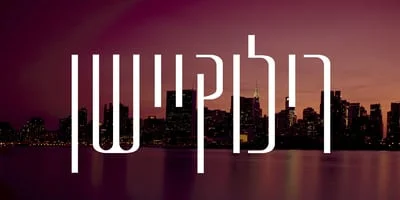
Glass MF Font
Glass MF Font is crystallinely designed for high-tech company branding, modern architectural presentations, luxury crystal product packaging, contemporary art gallery materials, premium glassware advertising, sleek technology interfaces, transparent design projects, and sophisticated optical communications. This luminous typeface excels in environments requiring clarity and modern transparency, making it perfect for tech startups, architectural firms, luxury brands, and any organization needing to communicate precision and crystalline elegance through distinctive typography.
What makes Glass MF Font so exciting is its exceptional ability to capture the essence of transparency and optical clarity through letterforms that appear to shimmer with crystalline precision and modern sophistication. The font features meticulously crafted characters with clean geometric lines and subtle refractive qualities that evoke the pristine clarity of fine crystal and the precision of optical instruments. Its transparent construction and modern character make it incredibly effective for brands wanting to communicate innovation, clarity, and technological advancement while appealing to audiences who appreciate cutting-edge design and premium quality.
Glass MF Font typically includes multiple weights and styles such as Thin, Light, Regular, Medium, and Bold, often accompanied by crystalline variants with enhanced transparency effects. The font family frequently features additional character sets including technical symbols, optical elements, and precision glyphs that enhance its high-tech appeal. Each weight maintains the font's distinctive transparent character while offering different levels of visual clarity, providing designers with comprehensive tools for creating modern brand identities and technology-focused communication materials.
Technology professionals will discover that Glass MF Font delivers outstanding performance in both digital interface applications and luxury branding materials requiring modern sophistication. The font's carefully engineered character set includes precision-focused letterforms, technical symbols, and clarity elements essential for technology branding, architectural presentations, and luxury product communications. Its crystalline design makes it particularly effective for tech companies, architectural studios, luxury glassware brands, and premium-oriented marketing campaigns requiring authentic transparency presence.
The meticulous attention to optical proportions and crystalline spacing ensures that Glass MF Font maintains exceptional readability while delivering maximum clarity impact. Its transparency-inspired design language makes it particularly effective for technology applications, modern architecture, luxury branding, and optical communications. The font's luminous appearance creates strong technological credibility while remaining highly functional for projects requiring clear communication to design-conscious audiences and technology enthusiasts.
For designers seeking a typeface that embodies crystalline clarity with modern transparency, Glass MF Font represents an exceptional choice that will illuminate any project with its distinctive precision and transparent character.